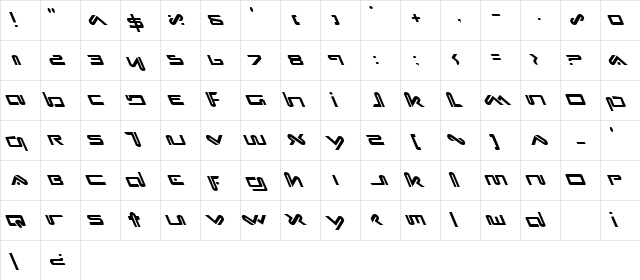
Xephyr Leftalic Free Font
Xephyr Leftalic Leftalic
Style: Leftalic
Design Context for Xephyr Leftalic
Xephyr Leftalic is a composed and adaptable typeface that performs quietly and consistently across a wide range of design contexts. The slanted form adds forward momentum and visual energy.
Pro Tip: Use Xephyr Leftalic for emphasis, pull quotes, and subheadings where its slanted energy can add rhythm to the layout.